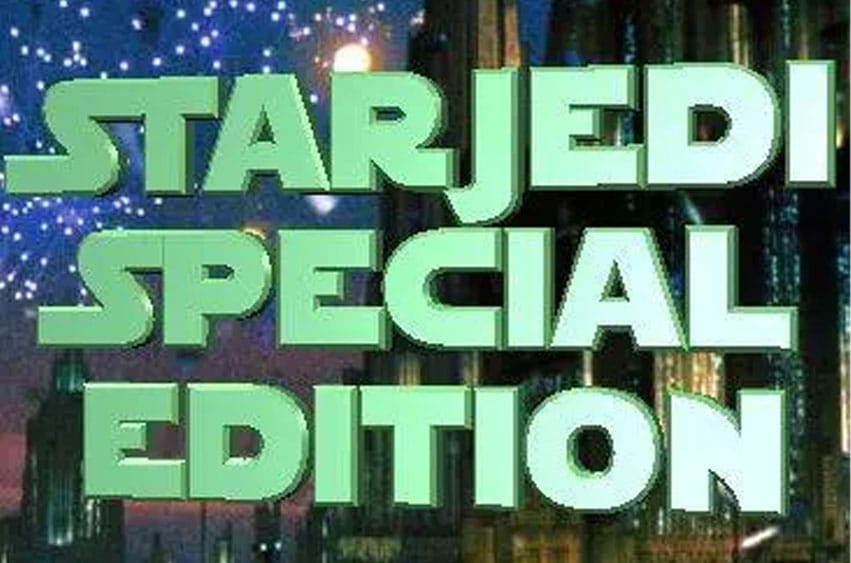
StarJedi Special Edition Font Boba Fonts provides for the StarJedi Special Edition one of the Disney fonts for free, however, it is considered a premium font for download and use in both personal and commercial spheres.
It is also includes lower cases of each alphabets and it also includes several special characters which is quite easy to read.